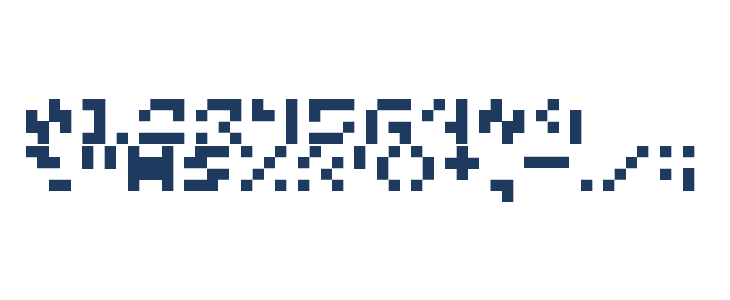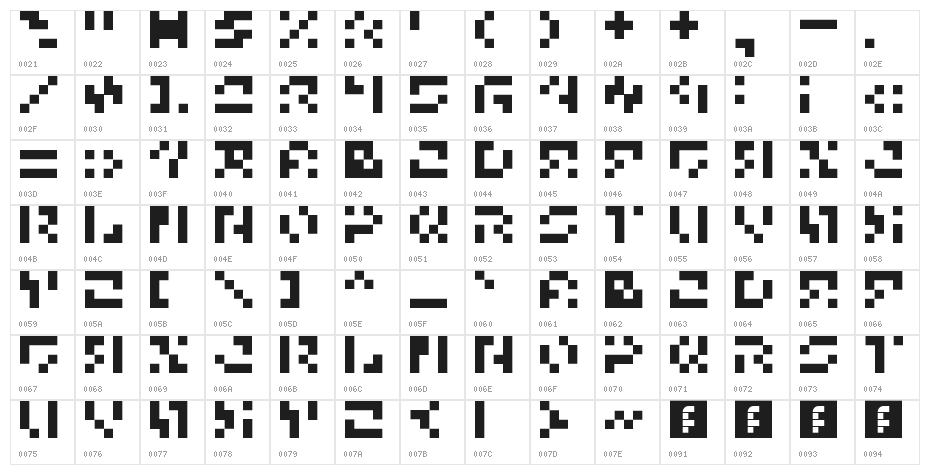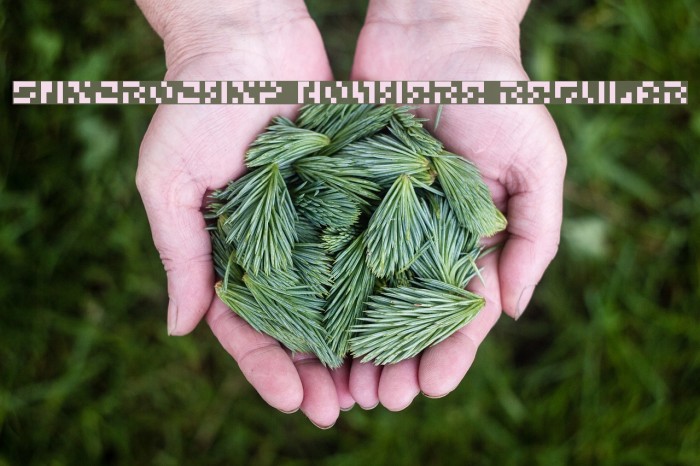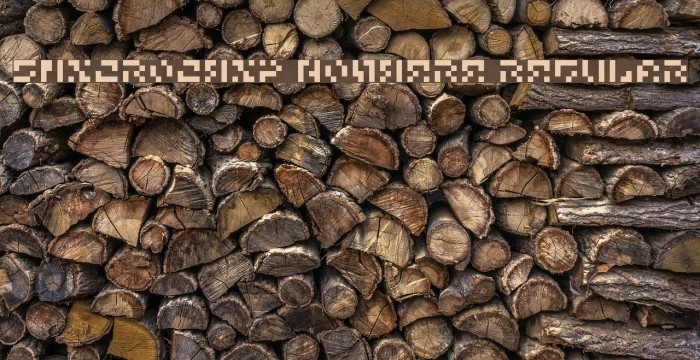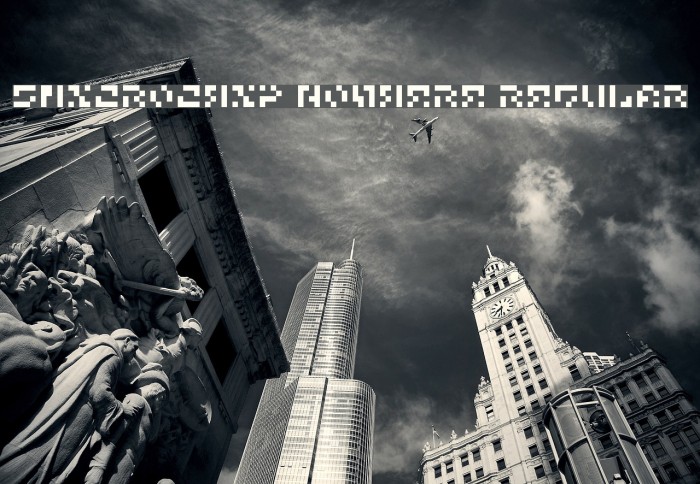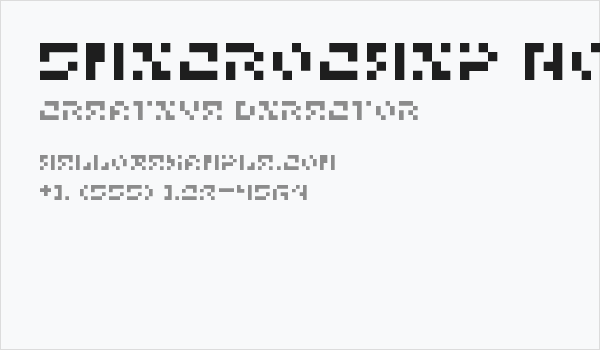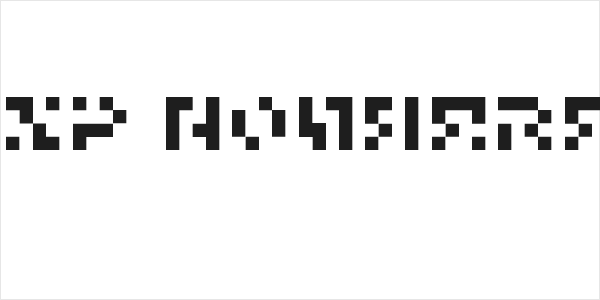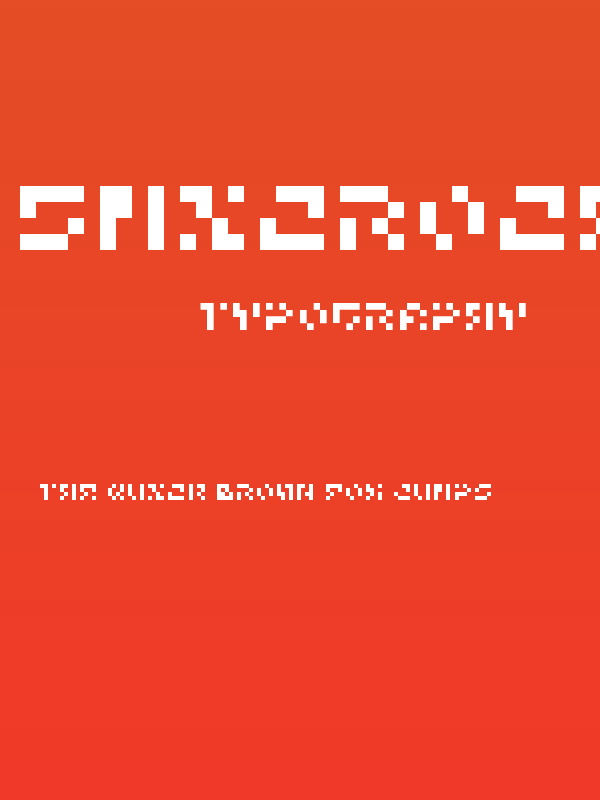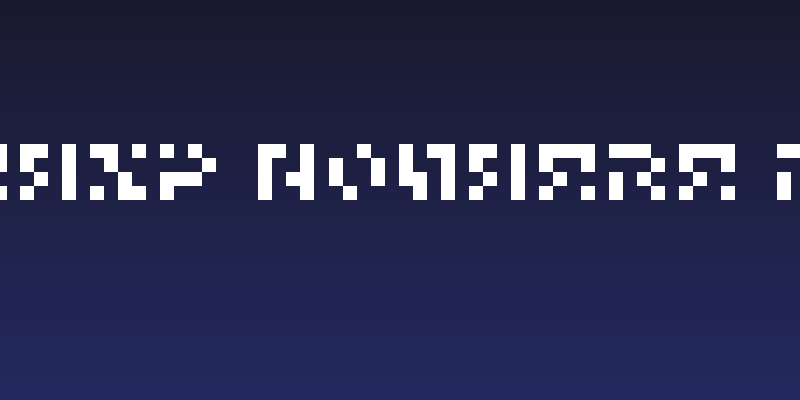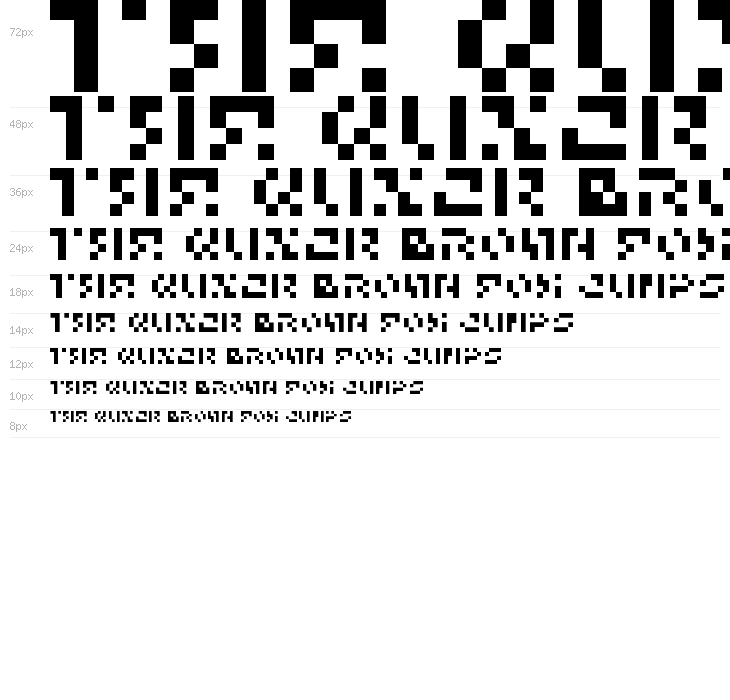
5Microchip Nowhere Regular Font
5Microchip Nowhere Regular Description
This font features a distinct pixelated design, reminiscent of early digital displays and retro video games. Each character is constructed with a grid-like structure, giving it a blocky, geometric appearance. The uniformity in stroke width across all characters contributes to its cohesive and consistent look. The uppercase and lowercase letters maintain a similar height, enhancing its monospaced feel. Numbers and special characters follow the same pixelated style, ensuring visual harmony throughout. This font's unique aesthetic makes it ideal for projects that aim to evoke nostalgia or a tech-inspired theme.
| Overall Style | Retro, Digital |
| Use Case | Logos, Headlines, Digital Art |
| Proposed Projects | Ideal for retro-themed designs, video game graphics, tech-inspired branding, and digital art projects. |